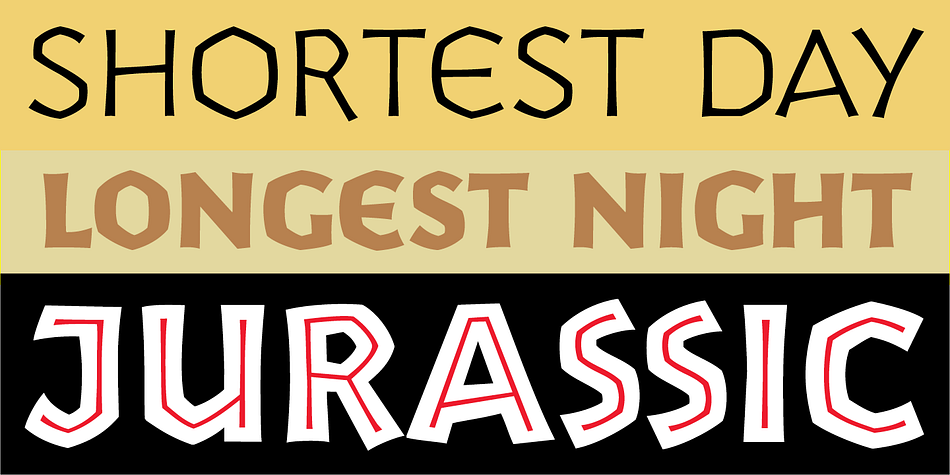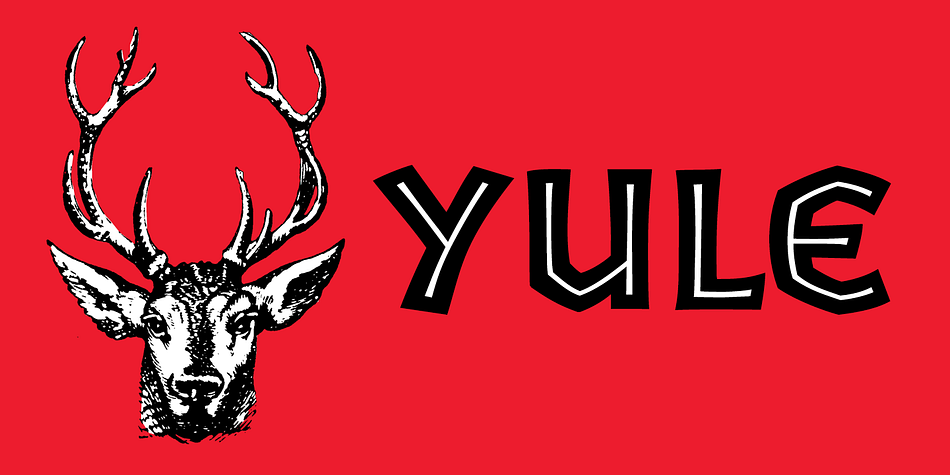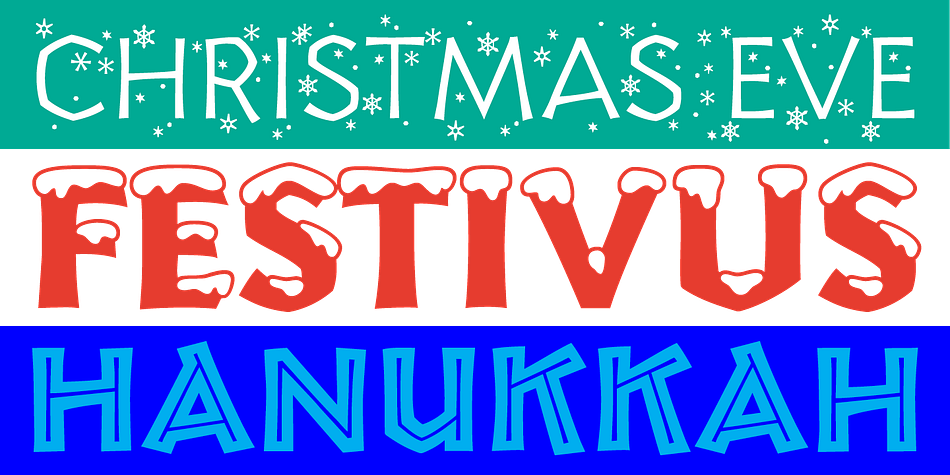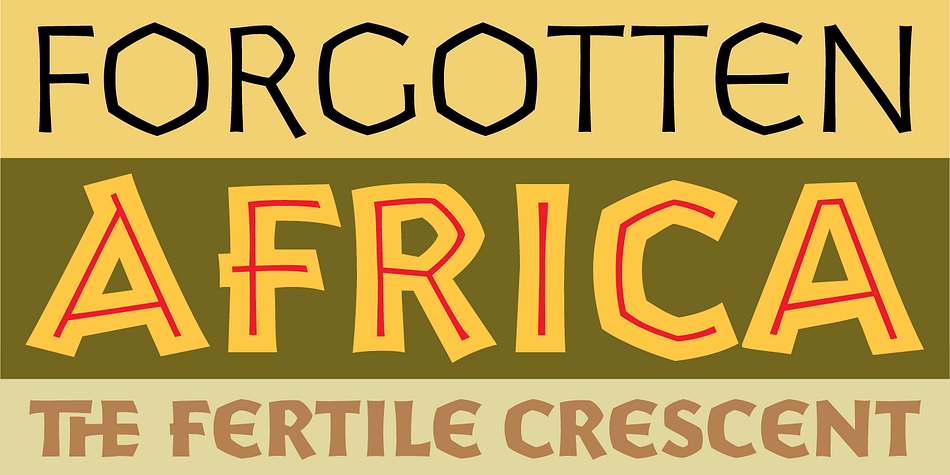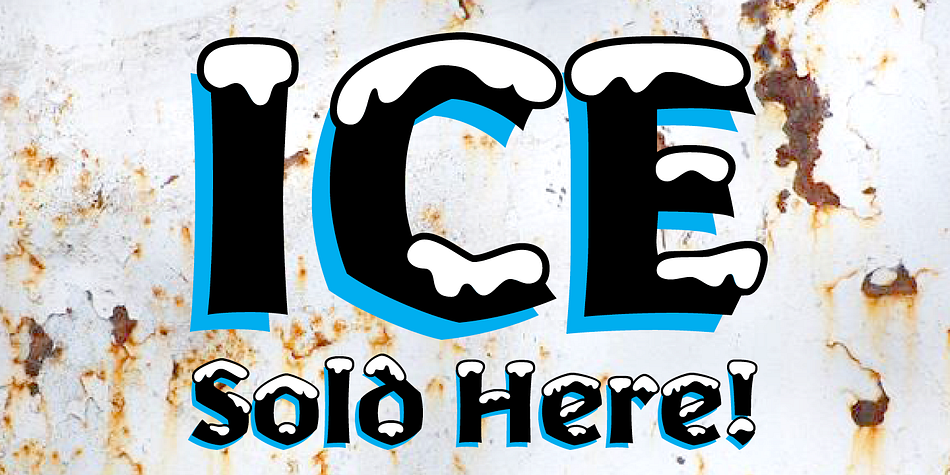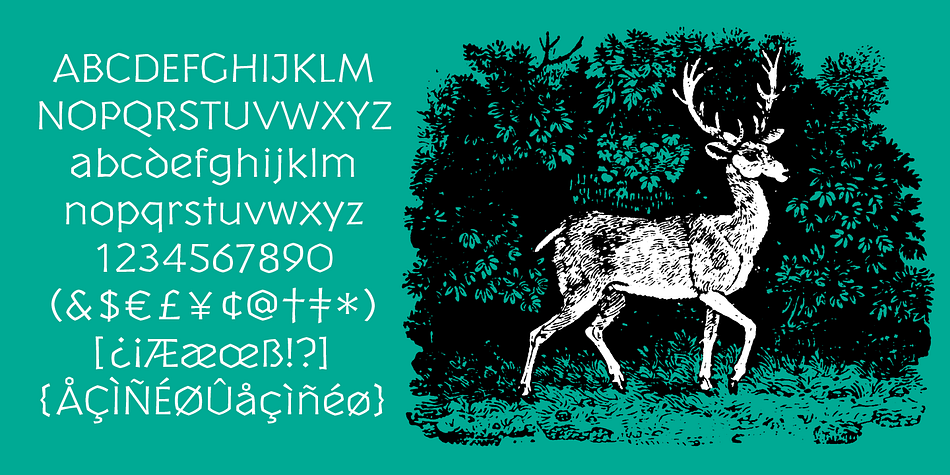
P22 Yule is a multiple classification font family. This typeface has seven styles and was published by International House of Fonts.
P22 Yule has been expanded to contain 4 new fonts. These faces have a newly designed upper and lowercase with snowy variations. Yule has an alpine look, lending itself to the thoughts of chalets and fondue. Yule Heavy Snow is blanketed in the white stuff, while Yule Light Flurries is dusted with snowflakes. With the addition of a lowercase, Yule becomes infinitely more usable. The Klein variations work well as an alternative to Neuland when you need the versatility of a lowercase.